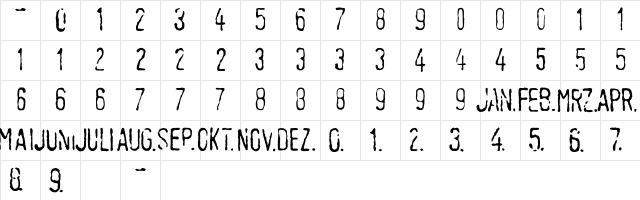
LTTagesstempel Mager Regular
Designer: Georg Kugler
Design Context for LTTagesstempel Mager
LTTagesstempel Mager is a composed and adaptable typeface that performs quietly and consistently across a wide range of design contexts.